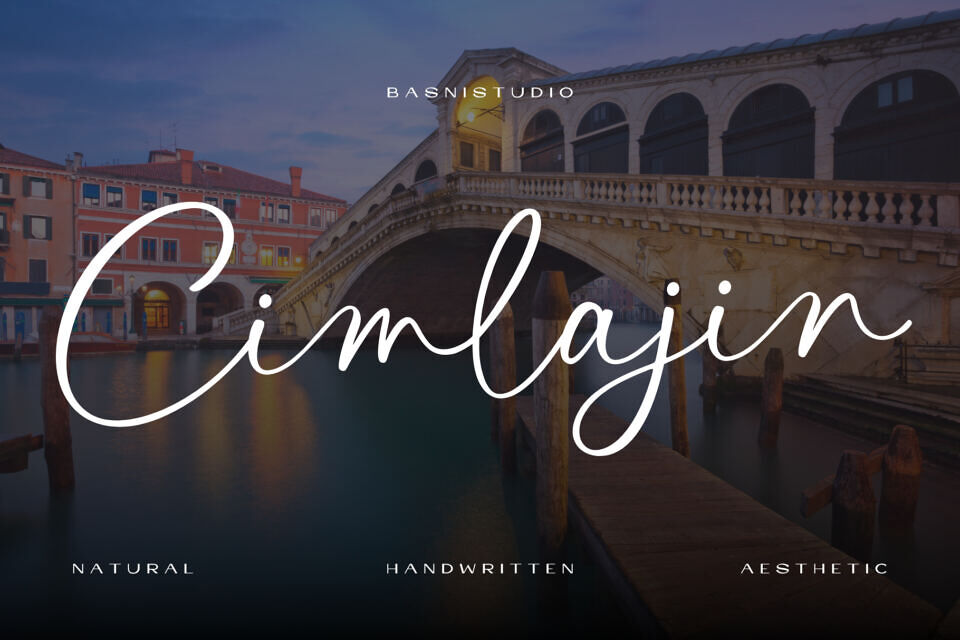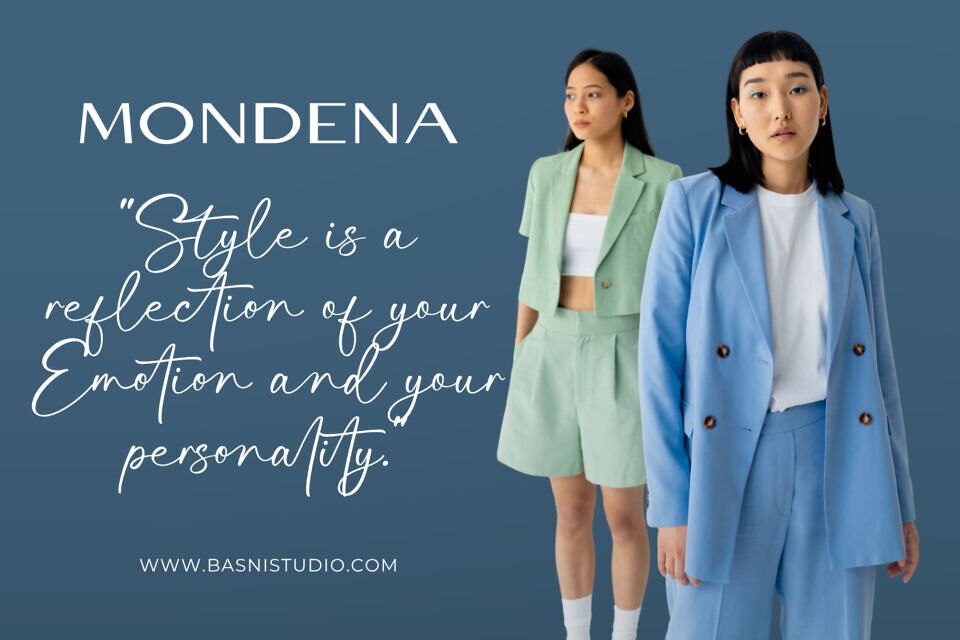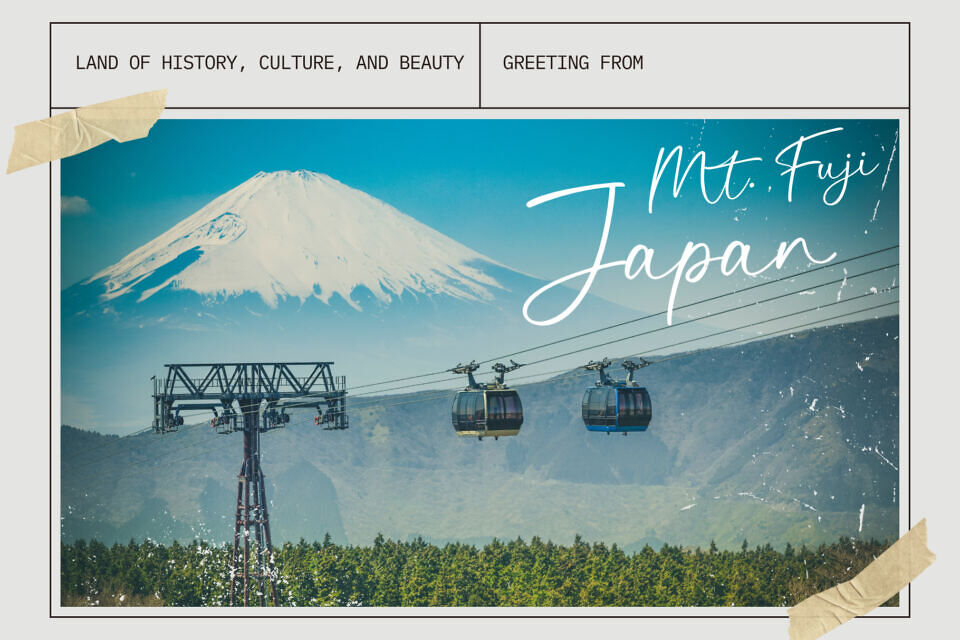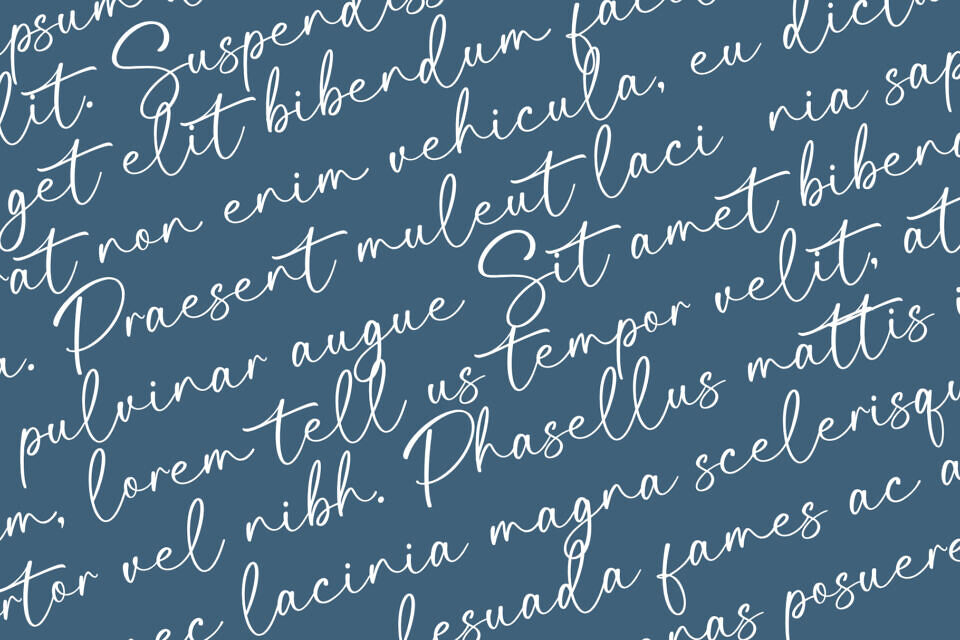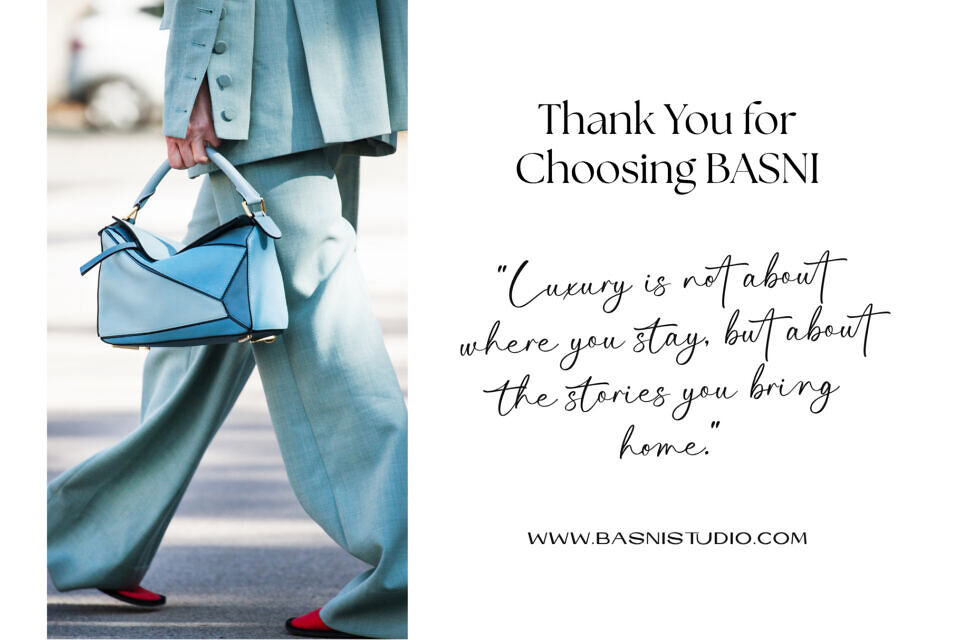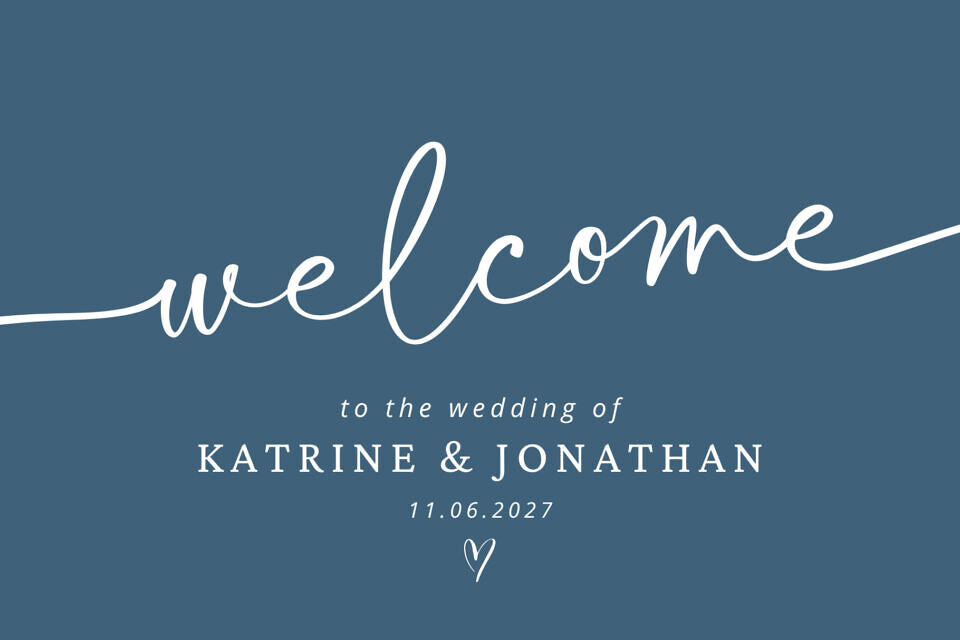
Cimlajin font features sweeping monoline strokes uniquely characterized by large dramatic loops on the capital initials, elongated connecting ligatures, and a graceful script rhythm that perfectly bridges the gap between old-world European travel journals and modern boutique luxury branding.
With its authentic, free-flowing movement and poetic confidence, Cimlajin is the premier choice for independent lifestyle blogs, premium fine wine labels, bespoke wedding invitations, artisan fashion lookbooks, luxury resort identity signage, and high-impact social media headers.